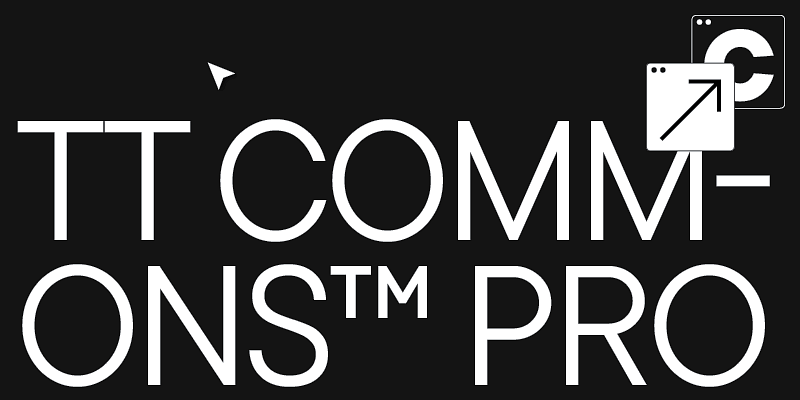
The TT Commons Pro Font is exceptionally suited for numerous professional and modern applications including corporate identity systems, tech company branding, startup communications, digital product interfaces, modern website designs, business presentations, professional documentation, contemporary advertising campaigns, mobile app interfaces, and innovative marketing materials. Its versatile character makes it particularly effective for technology companies, modern enterprises, digital agencies, and forward-thinking businesses seeking to convey innovation, reliability, and contemporary sophistication in their visual communications and brand presentations.
What makes the TT Commons Pro Font extraordinarily exciting is its perfect balance of geometric precision and humanistic warmth combined with professional-grade typographic excellence. This comprehensive typeface represents the pinnacle of contemporary sans-serif design, incorporating advanced OpenType features and meticulous craftsmanship that ensure optimal performance across all modern platforms and applications. The font's captivating character emerges from its clean geometric foundation, perfectly balanced proportions, and carefully engineered details that create a sense of technological sophistication and professional trustworthiness, making it perfect for brands seeking to establish modern authority and appeal to tech-savvy, design-conscious audiences.
The TT Commons Pro Font family offers an extensive collection of weights and styles designed to provide comprehensive professional typography solutions. The collection typically includes thin, light, regular, medium, semi-bold, bold, and black weights, with many versions featuring refined italic variants that enhance the font's versatility and professional character. Some editions may include condensed and expanded versions, along with advanced OpenType features such as stylistic alternates, ligatures, and contextual substitutions that provide unlimited design options for creating sophisticated typographic treatments and professional brand applications.
Professional designers and modern branding specialists consistently select the TT Commons Pro Font Free Download for its exceptional quality and versatile performance. The font features meticulously engineered spacing and kerning optimized for both digital and print applications, ensuring perfect readability across various professional contexts and screen resolutions. Its robust construction maintains clarity and sophistication across different sizes and viewing conditions, while the comprehensive character set includes full Latin script support, extensive punctuation, numerals, and special symbols, along with multilingual capabilities for international business communications and global technology projects.
The TT Commons Pro Font represents the evolution of professional typography, combining contemporary design principles with advanced technical functionality. Its modern aesthetic demonstrates innovation while maintaining the reliability required for serious business applications. The font's remarkable versatility allows it to work effectively in both minimalist tech contexts and complex information-rich layouts, ensuring consistent professionalism across corporate websites, business materials, digital interfaces, and modern communications.
Achieve professional excellence and modern sophistication with the contemporary precision and versatile reliability of the TT Commons Pro Font, the ultimate choice for professional typography excellence.